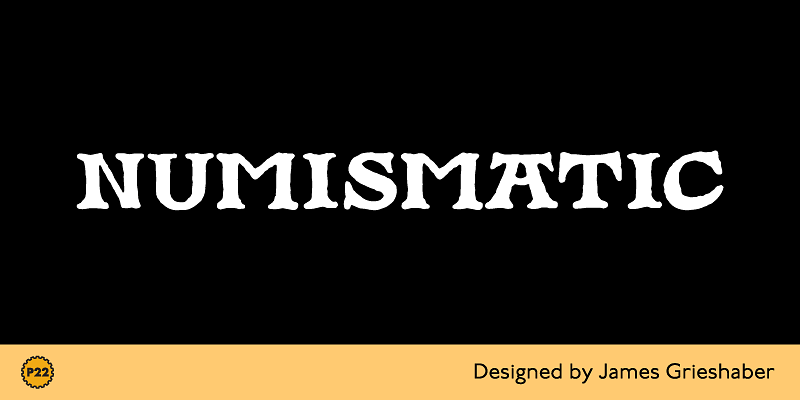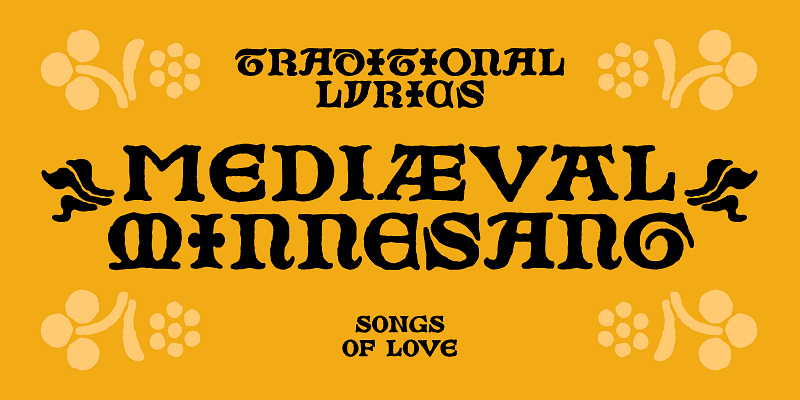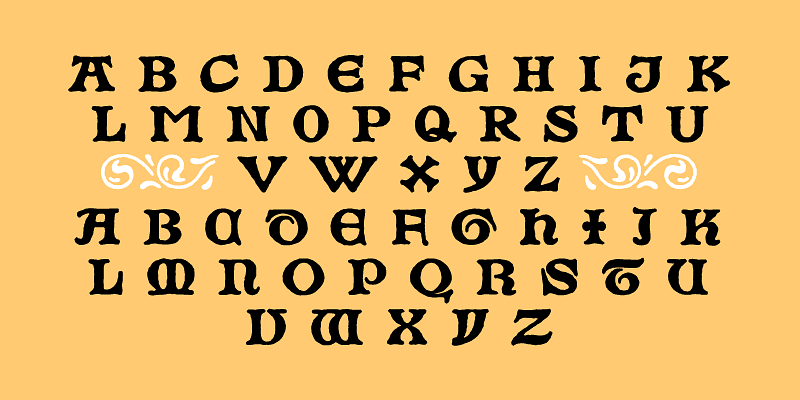
P22 Numismatic is a purposely antiqued display font meant to evoke 15th and 16th-century heraldic cartouches, seals, stamps, medals, and other inscriptional lettering. These letters and ornaments are loosely based on a typeface offered by the DeVinne Press at the turn of the 20th century. The original type sample contained some unusual 15th-century inscriptional numbers, which have been included as extras in the font so the user can create an authentic-looking design.